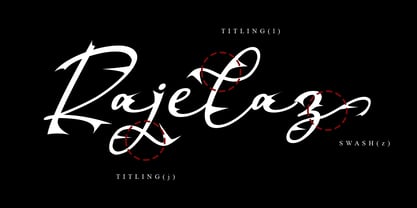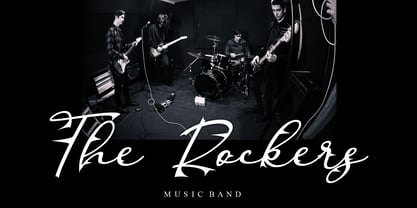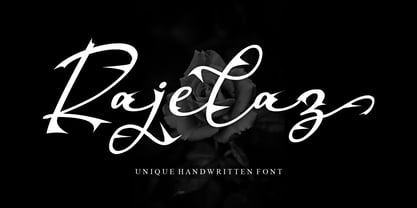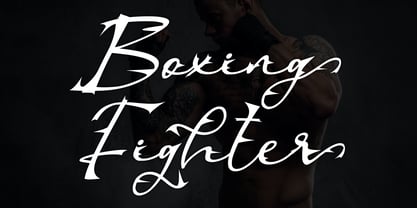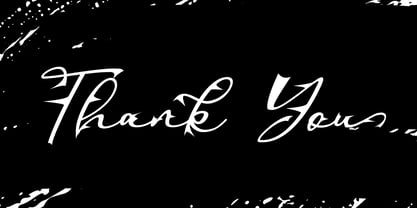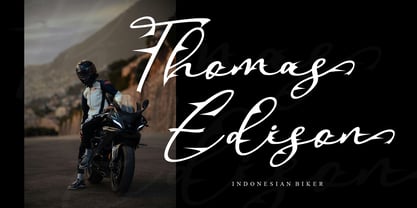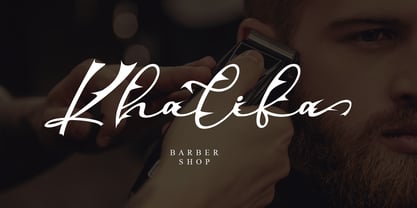
Rajelaz
by Letterafandi Studio
The Rajelaz Font Family was designed by Ahmad Afandi and published by Letterafandi Studio. Rajelaz contains 2 styles and family package options. More about this family
Unearth the artistic beauty encapsulated within the strokes of "Rajelaz," an exquisitely unique handwritten font."Rajelaz" adds a magnificent breath of personalized touch. With each character, a story is told, individuality is heralded, and distinctiveness embraced, all of which are the true essence of "Rajelaz," a notably unique handwritten font style. Immerse yourself in the creative world that is brought to life by "Rajelaz," and let your words dressed in this font style speak volumes of your ingenuity.
Designers: Ahmad Afandi
Foundry: Letterafandi Studio